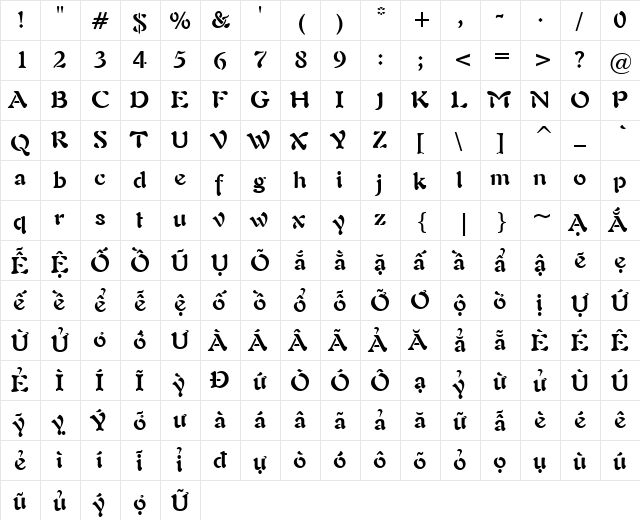
VI Hong Mai Normal Font Preview
VI Hong Mai Normal
Design Context for VI Hong Mai Typeface
VI Hong Mai takes a measured approach to typography — its balanced proportions and neutral character make it a reliable workhorse for both digital and print work.